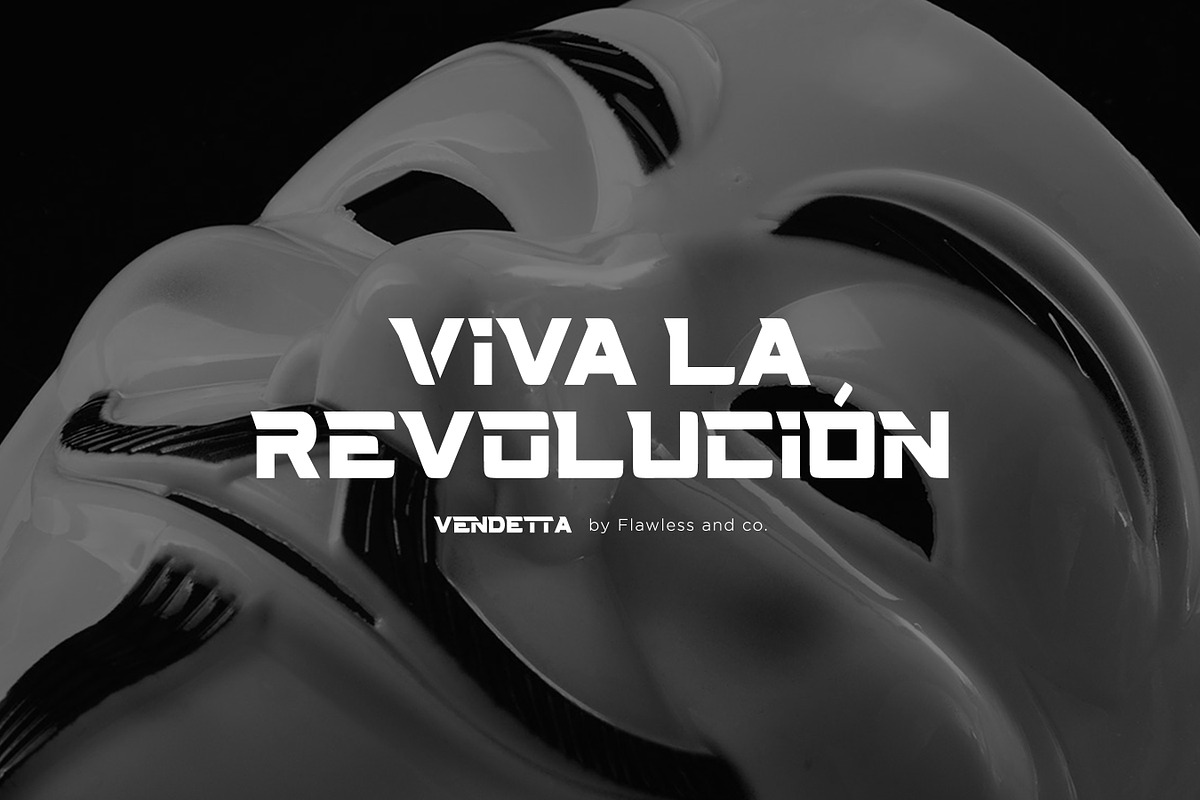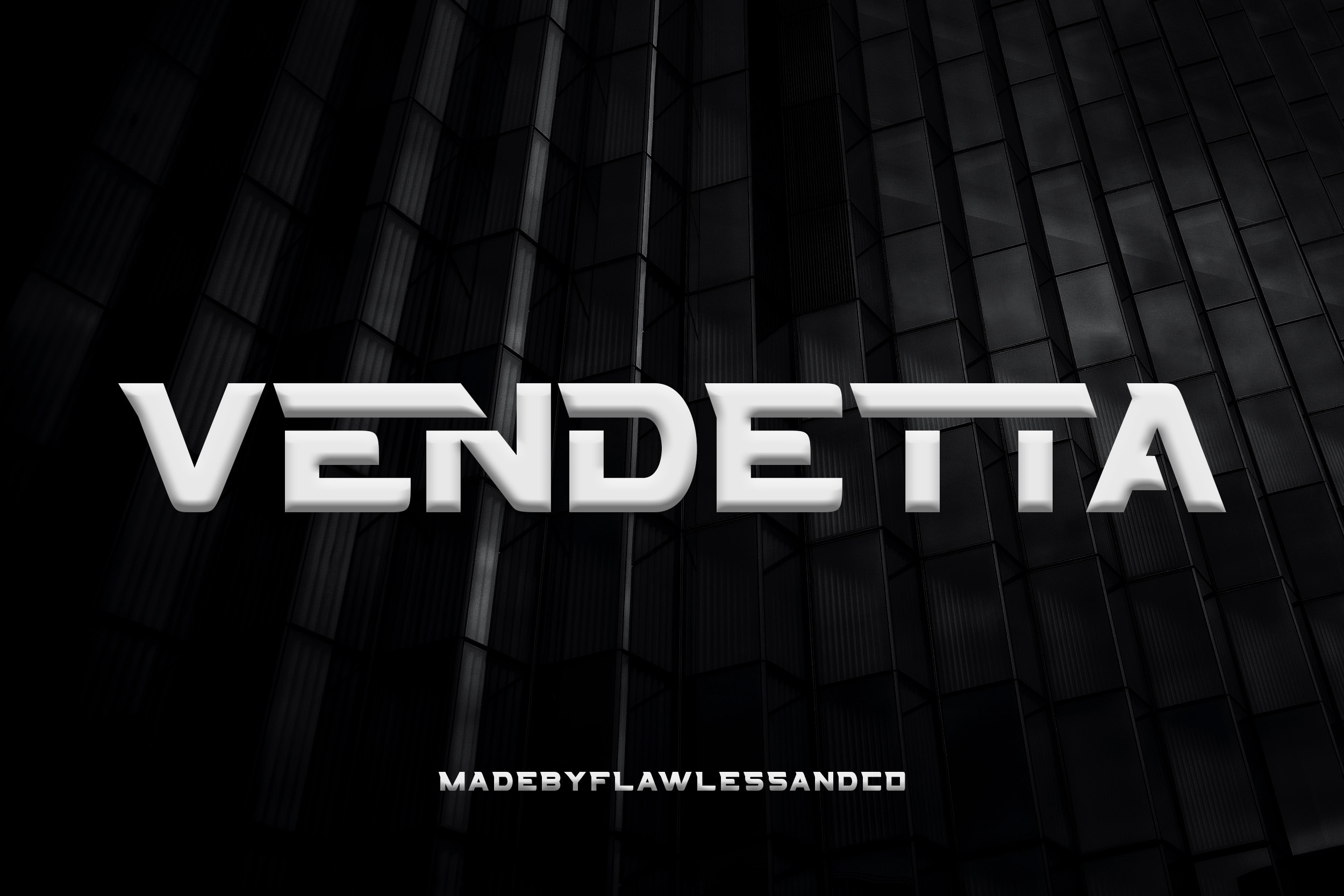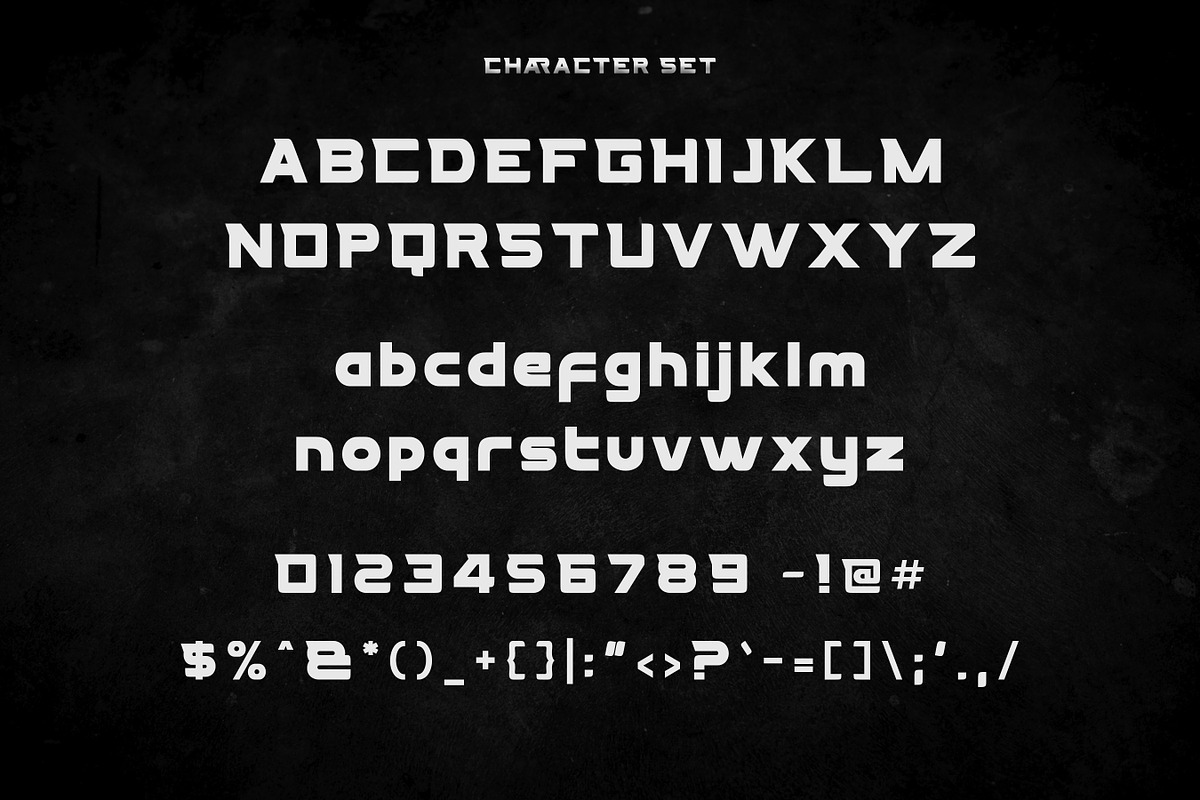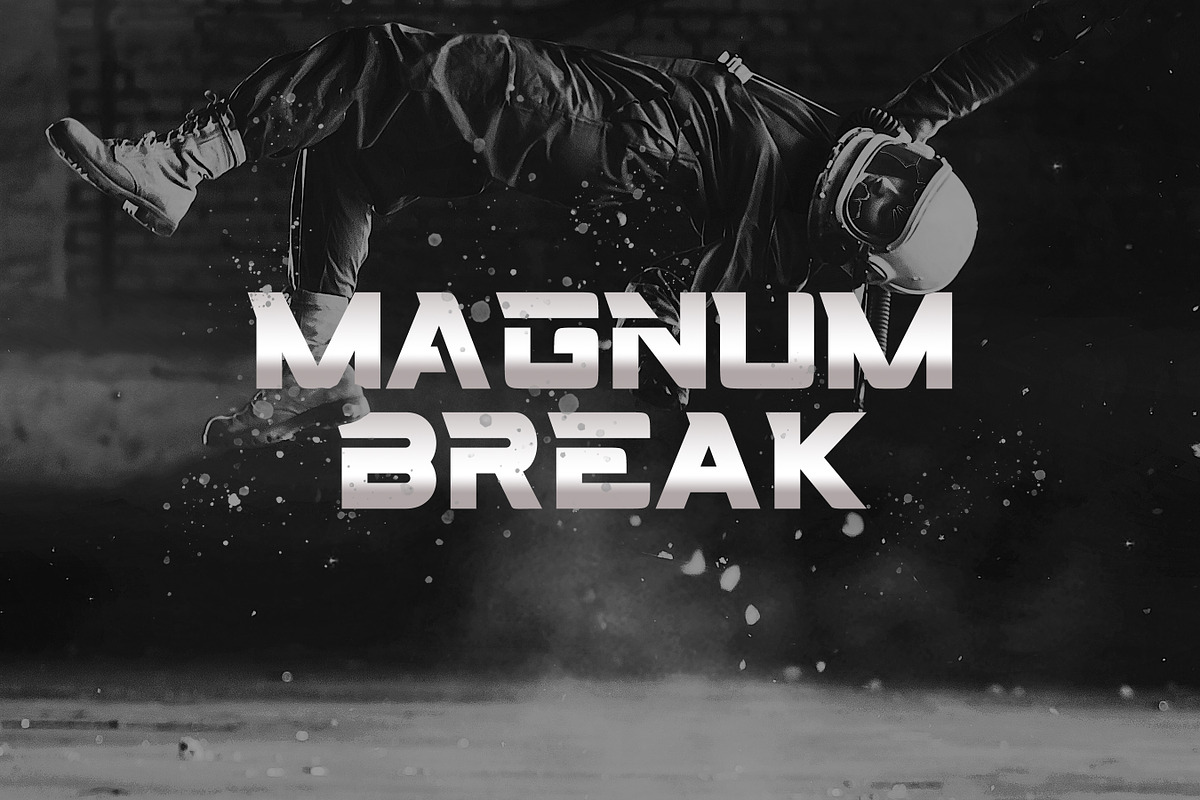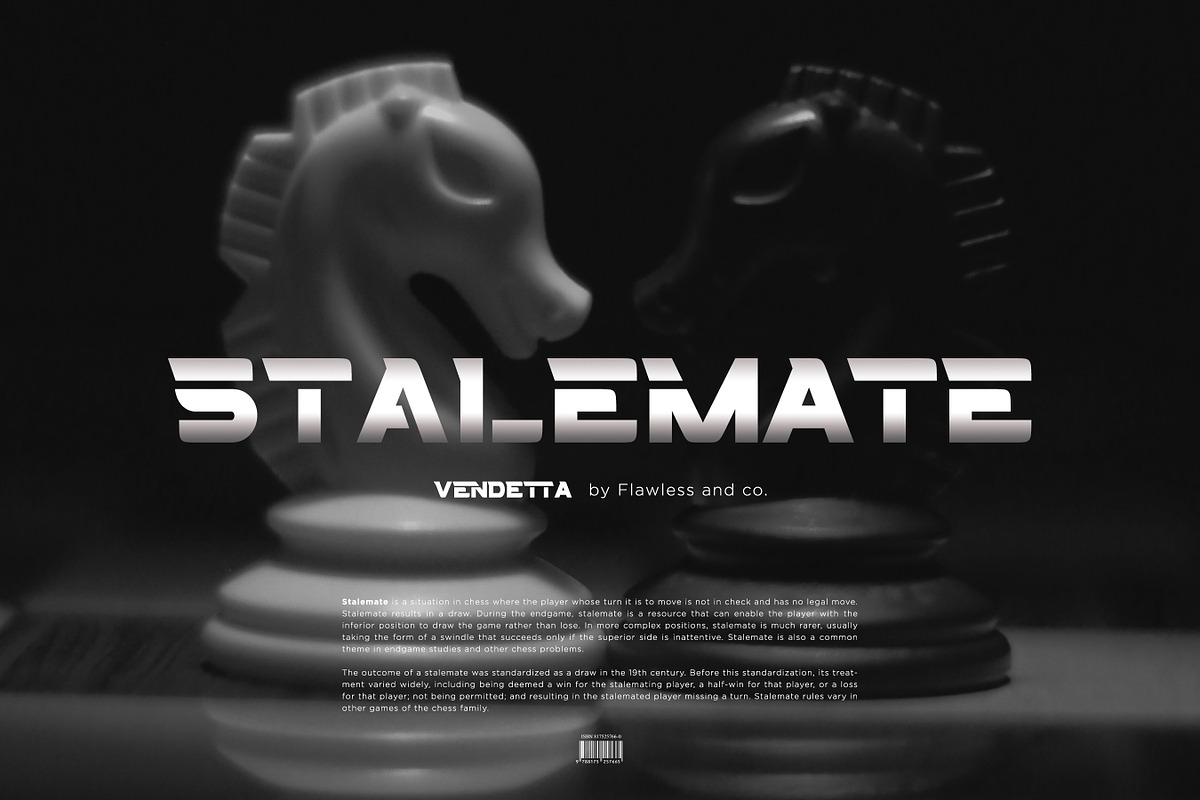
Vendetta - Sport Display Font
Introduction our creation "Vendetta" is sport display font, Modern Font with Elegant Style suitable for branding, business, logos, magazines, and others